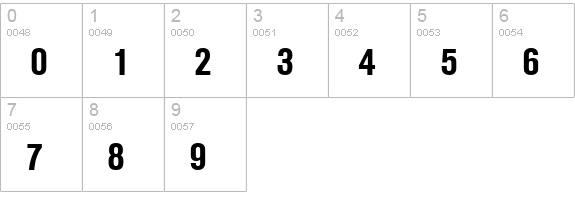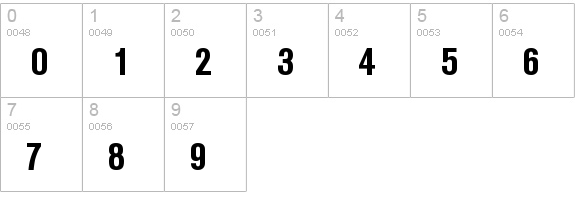
Arezzo-Cd-Demi Font Details
Arezzo-Cd-Demi is a sub-bold, structured variant in the Arezzo typeface family \xE2\x80\x94 well suited to sub-headlines and emphasised passages.
Arezzo-Cd-Demi is a versatile and stylish font that exudes elegance and sophistication. Its bold and modern design makes it perfect for a wide range of projects, from branding to editorial design. With its clean lines and sleek appearance, Arezzo-Cd-Demi adds a touch of class to any design. The best part? Arezzo-Cd-Demi is available for free download at FontsMarket.com. Whether you're working on a personal project or a professional assignment, this font is sure to make a statement. Don't miss out on the opportunity to elevate your designs with the timeless charm of Arezzo-Cd-Demi. Download it now and let your creativity shine!